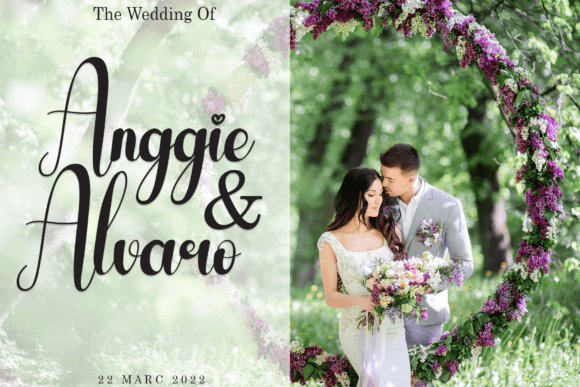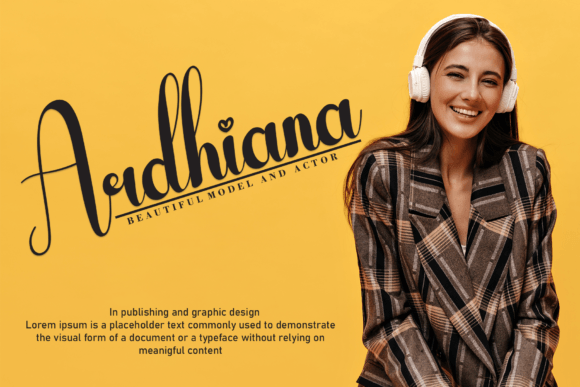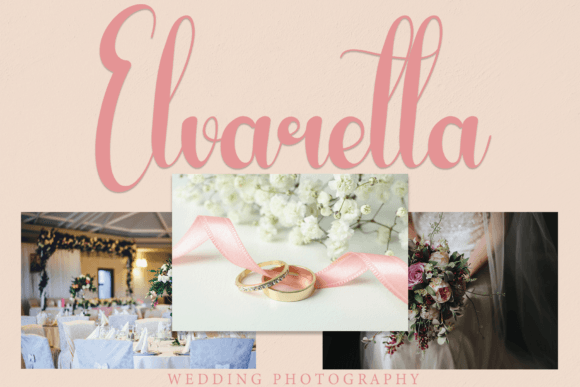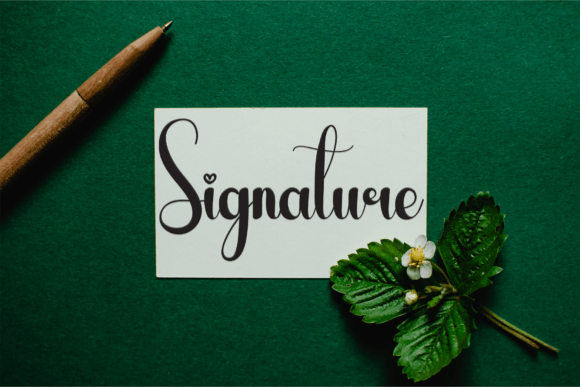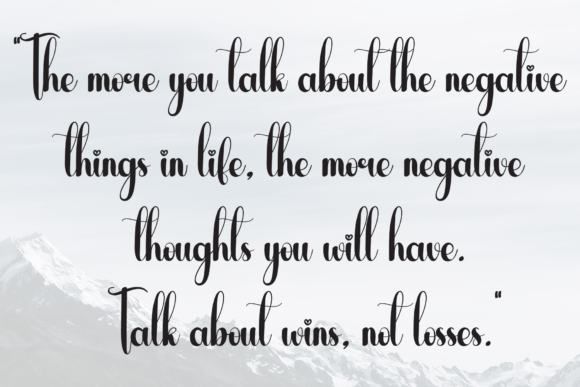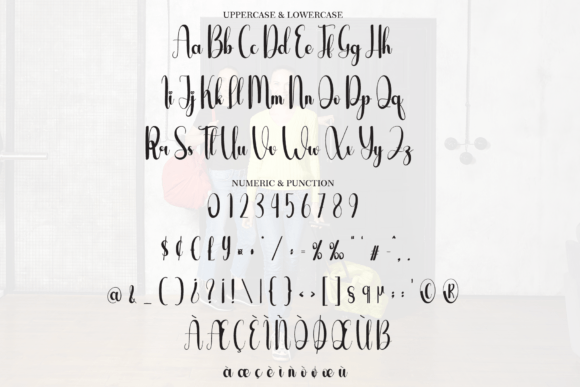
The Comeback Font: A Sweet and Friendly Handwritten Delight
I’ll never forget the time I was working on a wedding invitation project, and my client asked for a font that was “sweet, friendly, and not too fancy.” I scoured the internet, tried out dozens of fonts, but nothing seemed quite right. That was until I stumbled upon the Comeback font. ✨ It’s been a game-changer for me ever since, and I’m excited to share it with you today!
- ✨ Fresh and neat handwriting style that’s perfect for a variety of design projects
- ✅ Easy to read, even at smaller font sizes
- 💕 Sweet and friendly vibe that’s ideal for wedding invitations, cards, and other celebratory designs
- 🎉 Great for adding a fun touch to your designs, from party invitations to social media graphics
While I absolutely love the Comeback font, there are a few things to keep in mind: 🤔
- ⚠️ Some of the letters may appear a bit too “connected” for certain design projects, so be sure to adjust the tracking and kerning accordingly
- ⚠️ Limited availability of stylistic alternates, which may limit its versatility in certain design contexts
The Designer Inspiration Behind Comeback Font
The Comeback font was designed with the intention of creating a fresh and friendly handwritten font that’s perfect for a variety of design projects. The designer wanted to create a font that was easy to read, yet still had a personal touch. The result is a font that’s perfect for wedding invitations, cards, and other celebratory designs. 💕
Q: What type of designs is Comeback font best suited for?
A: Comeback font is perfect for designs that require a sweet and friendly touch, such as wedding invitations, cards, and other celebratory designs.